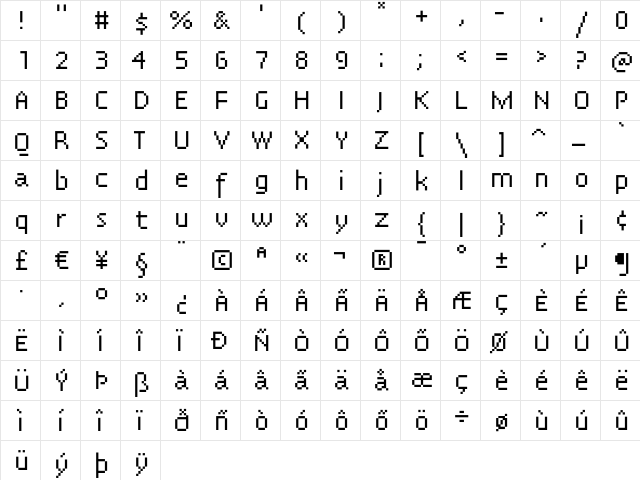
FedraEleven Normal Font Preview
FedraEleven Normal
Design Context for FedraEleven Typeface
FedraEleven takes a measured approach to typography — its balanced proportions and neutral character make it a reliable workhorse for both digital and print work.